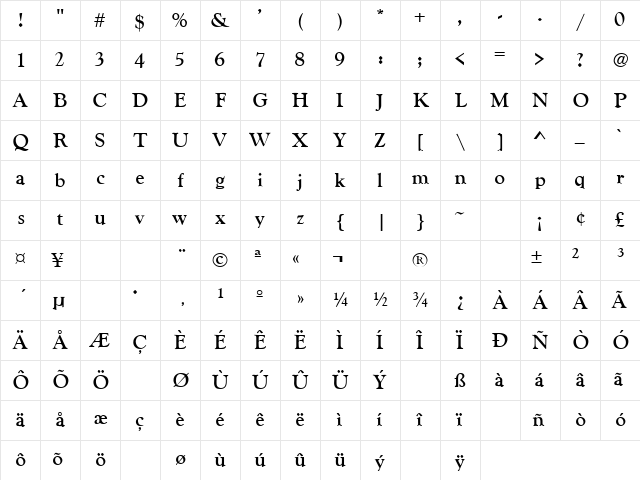
Complete Reefer Head Woman 4 Bold glyph index. Displaying only characters natively supported by Reefer Head Woman 4 Bold font.
Reefer Head Woman 4 is a composed and adaptable typeface that performs quietly and consistently across a wide range of design contexts. Its bold stroke weight gives it real presence on the page.